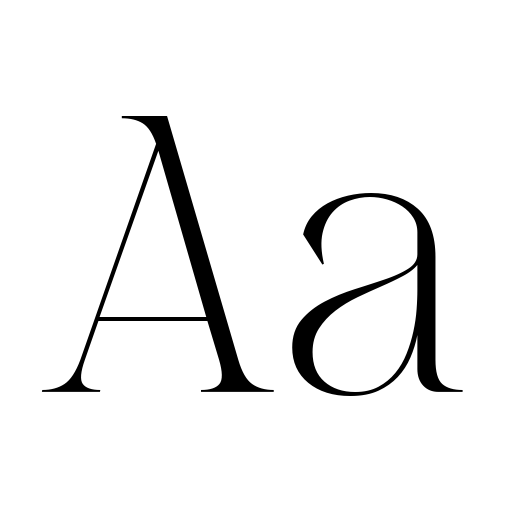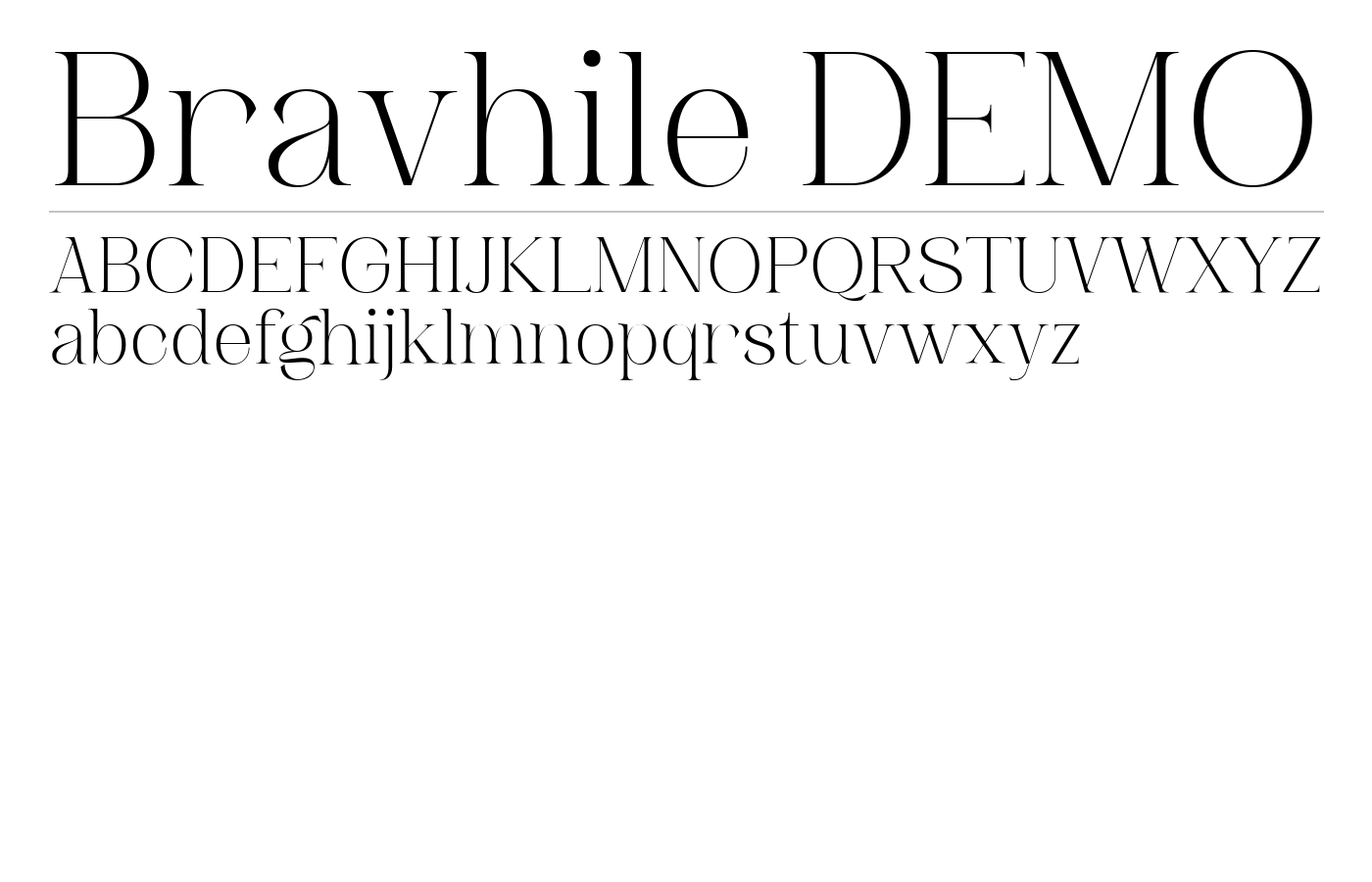
Bravhile DEMO is a delicate serif font featuring high contrast between thick and thin strokes, with elegant, slender lines and refined bracketed serifs, embodying a sophisticated, modern classic style. Its tall x-height and graceful letterforms make it perfect for luxury branding, editorial headlines, and fashion-focused design, where a touch of elegance and clarity is essential. This font combines timeless charm with contemporary sharpness, making it ideal for upscale and stylish visual communications.
Bravhile DEMO Font
About Bravhile DEMO Font
| Font family | Bravhile DEMO Font |
| Designer | Pentagonistudio |